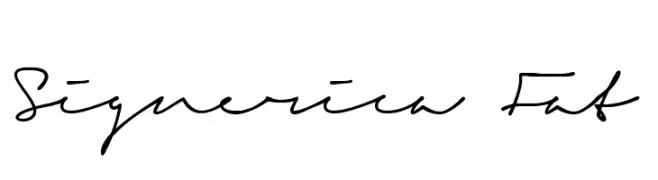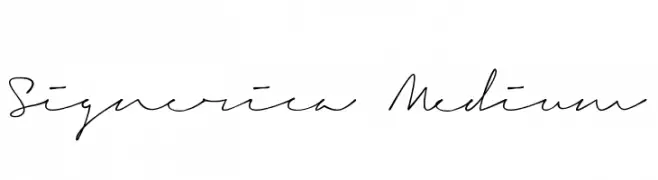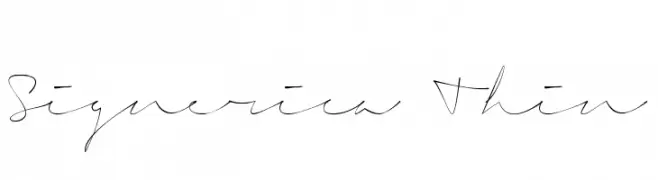
A thin, elegant script font with a flowing, handwritten style.
A fluid, elegant handwritten script with bold, flowing lines.
A fluid, cursive handwritten font with elegant, connected strokes.
A casual, handwritten font with a warm, personal touch.